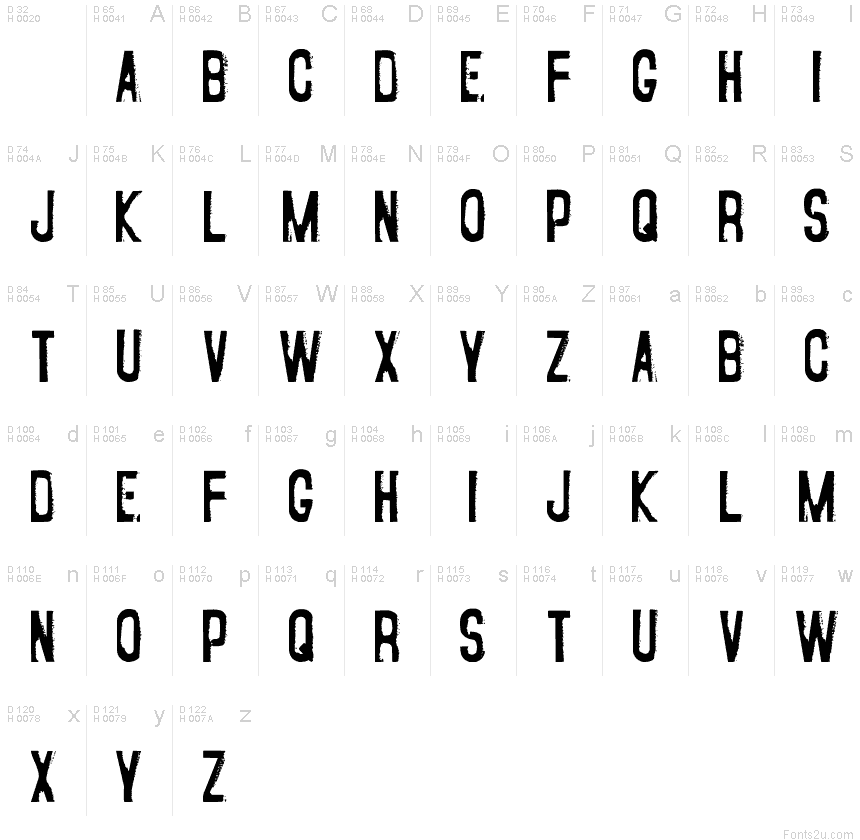
Fear of a Punk Planet
Fear of a Punk Planet font by Pennyzine.com is a free eroded display typeface that looks like it’s been dragged across concrete and photocopied a few too many times. Thick, blocky letters are bitten away with rough, splattered edges, giving every word a loud, handmade energy that feels straight out of a DIY flyer wall. It’s bold, messy, and unapologetically noisy on the page.
Using Fear of a Punk Planet, you can punch up gig posters, album covers, protest signs, zines, skateboard graphics, horror titles, or gritty streetwear branding. This free font thrives at large sizes where the scuffed texture really shows, and pairs well with a clean condensed sans serif for supporting text so the chaos stays controlled.